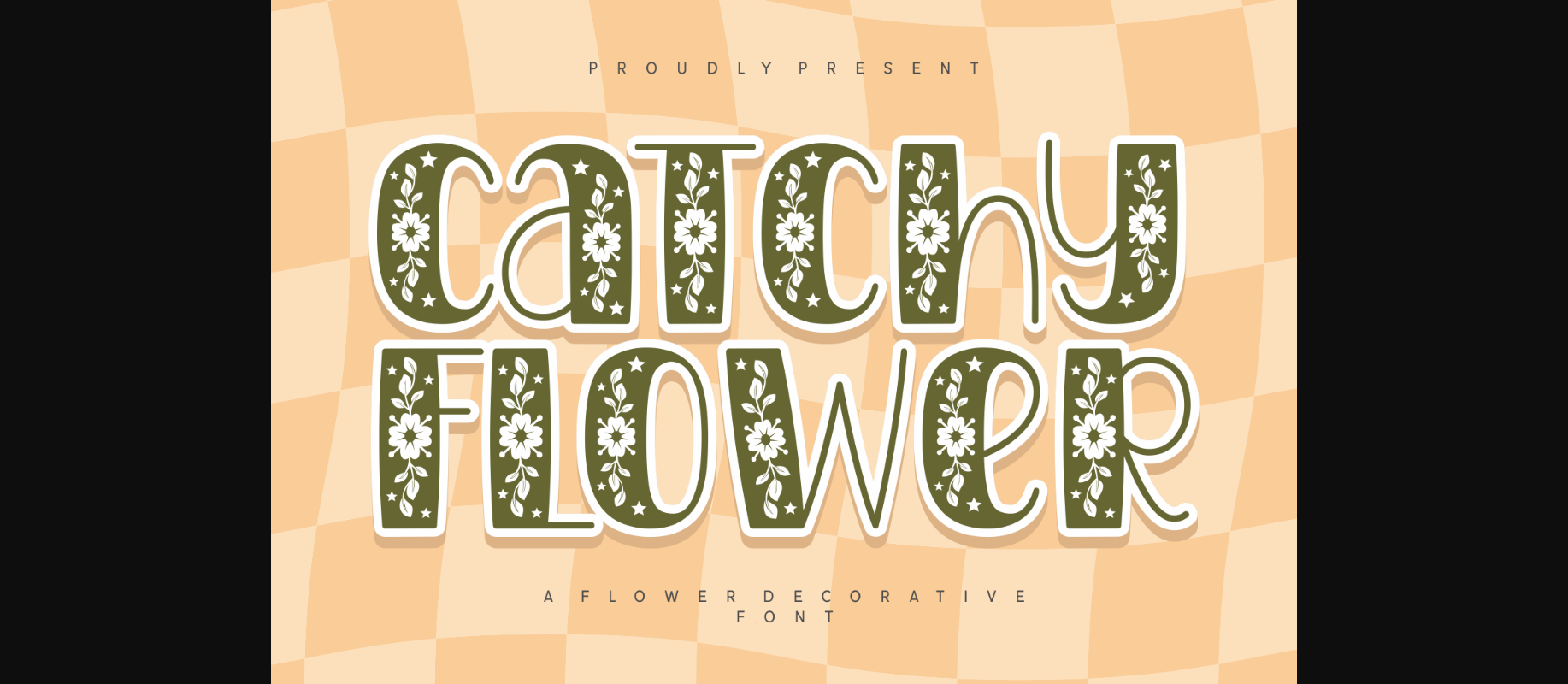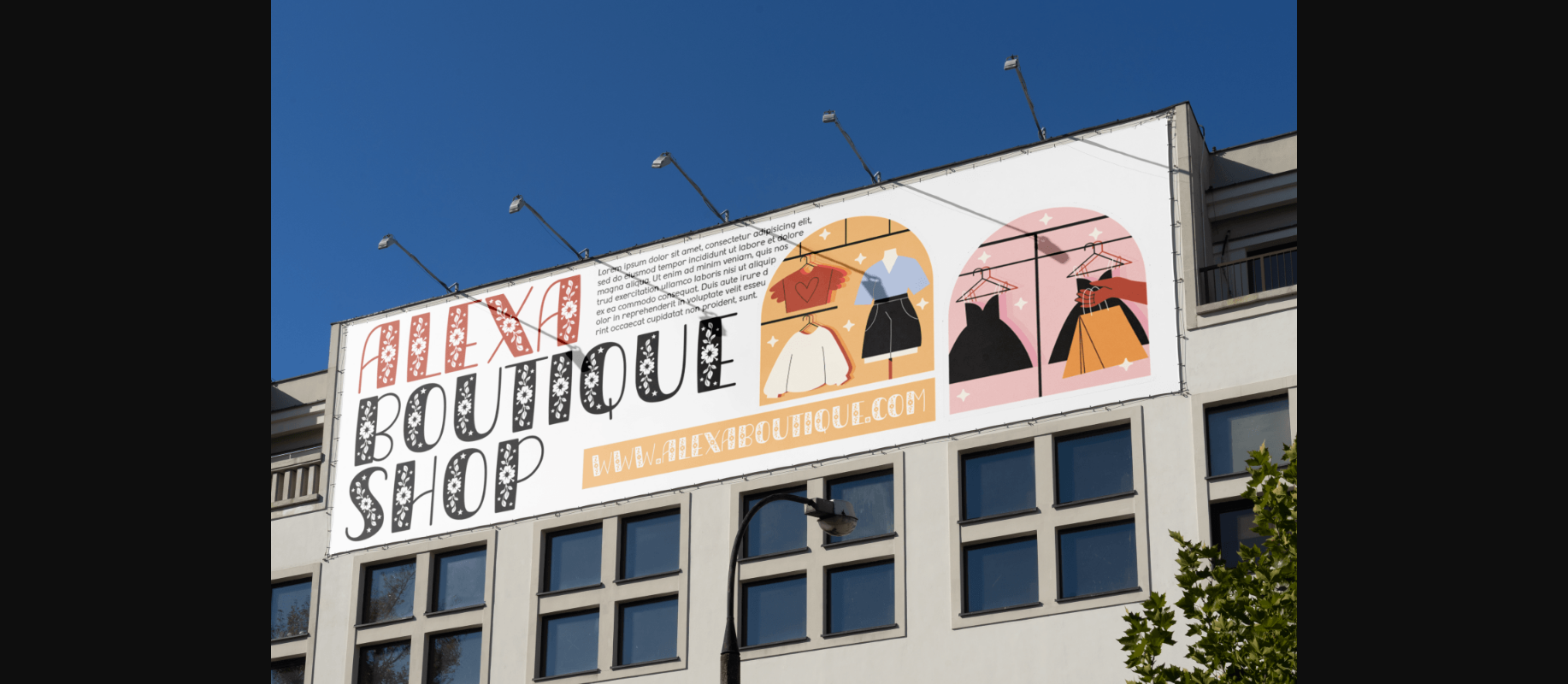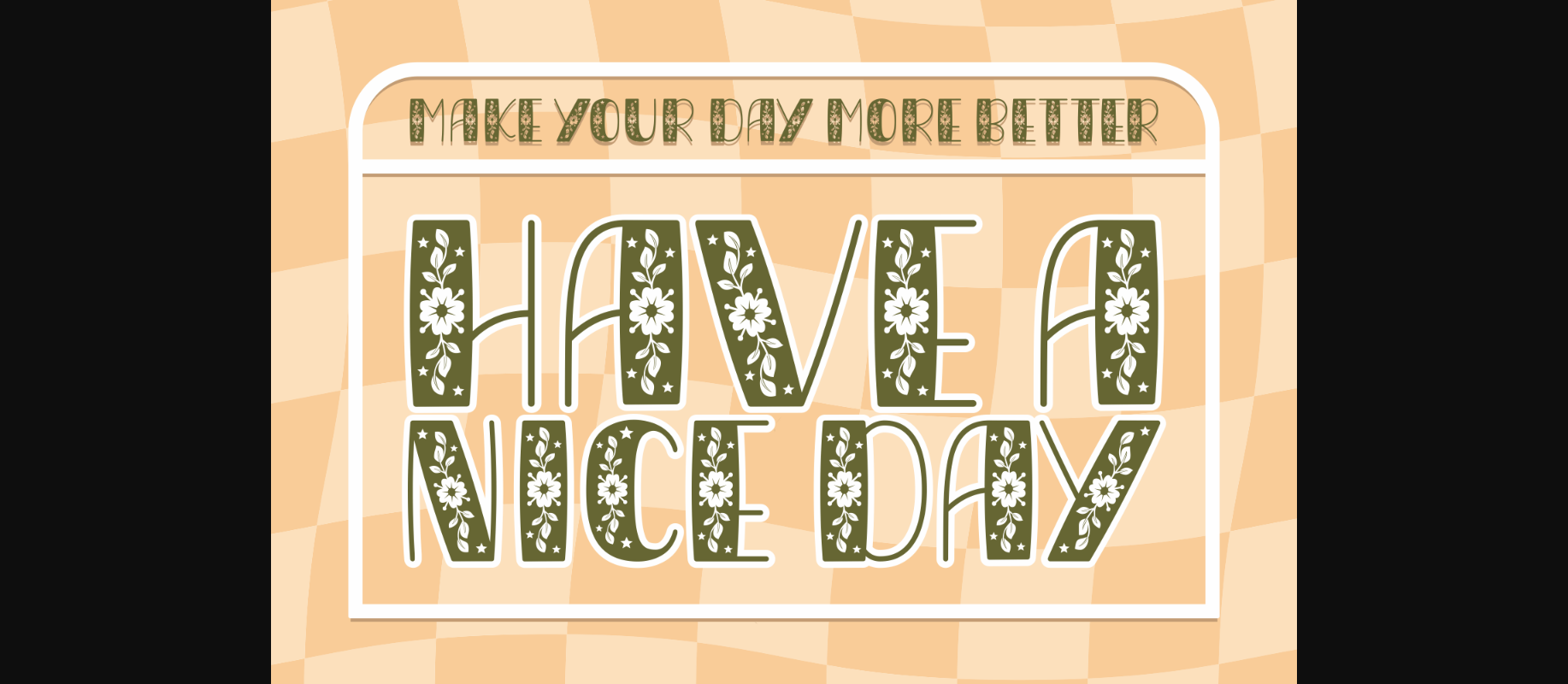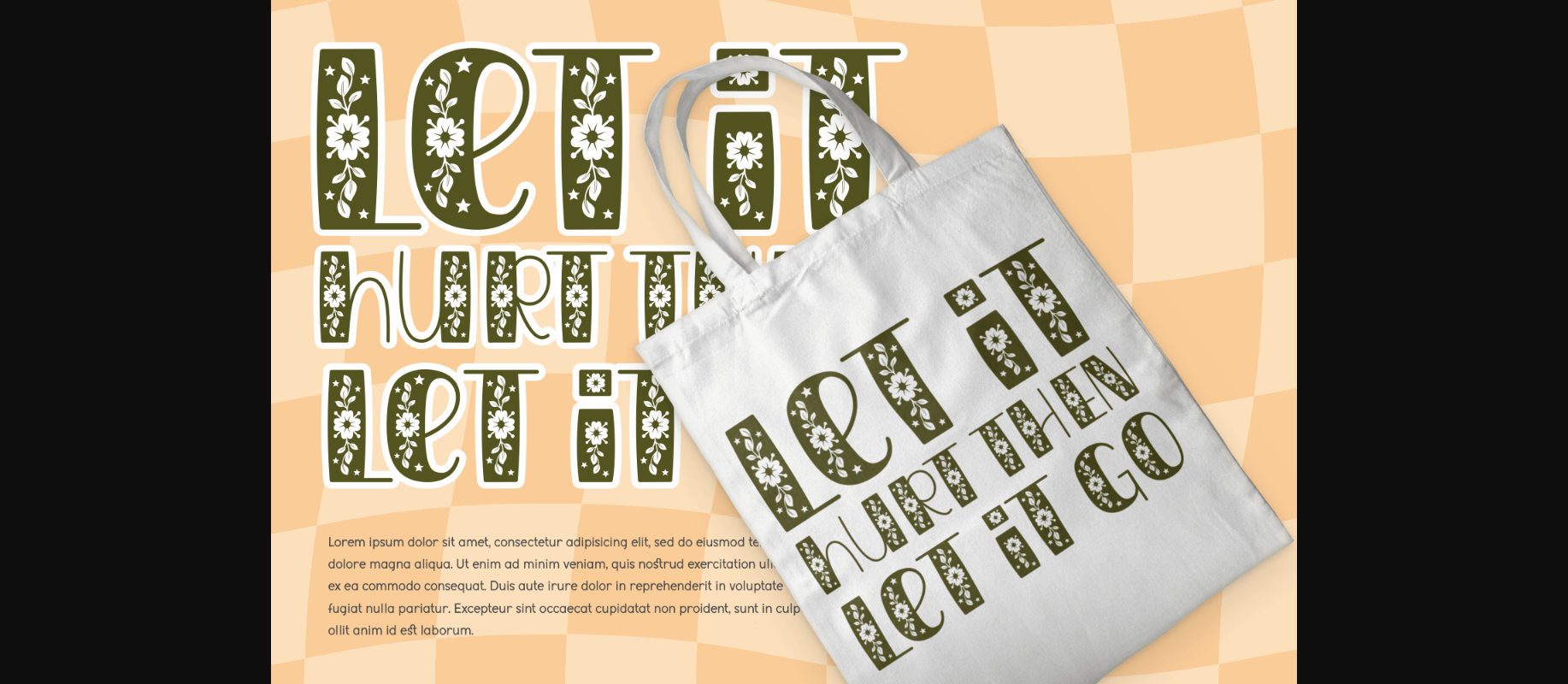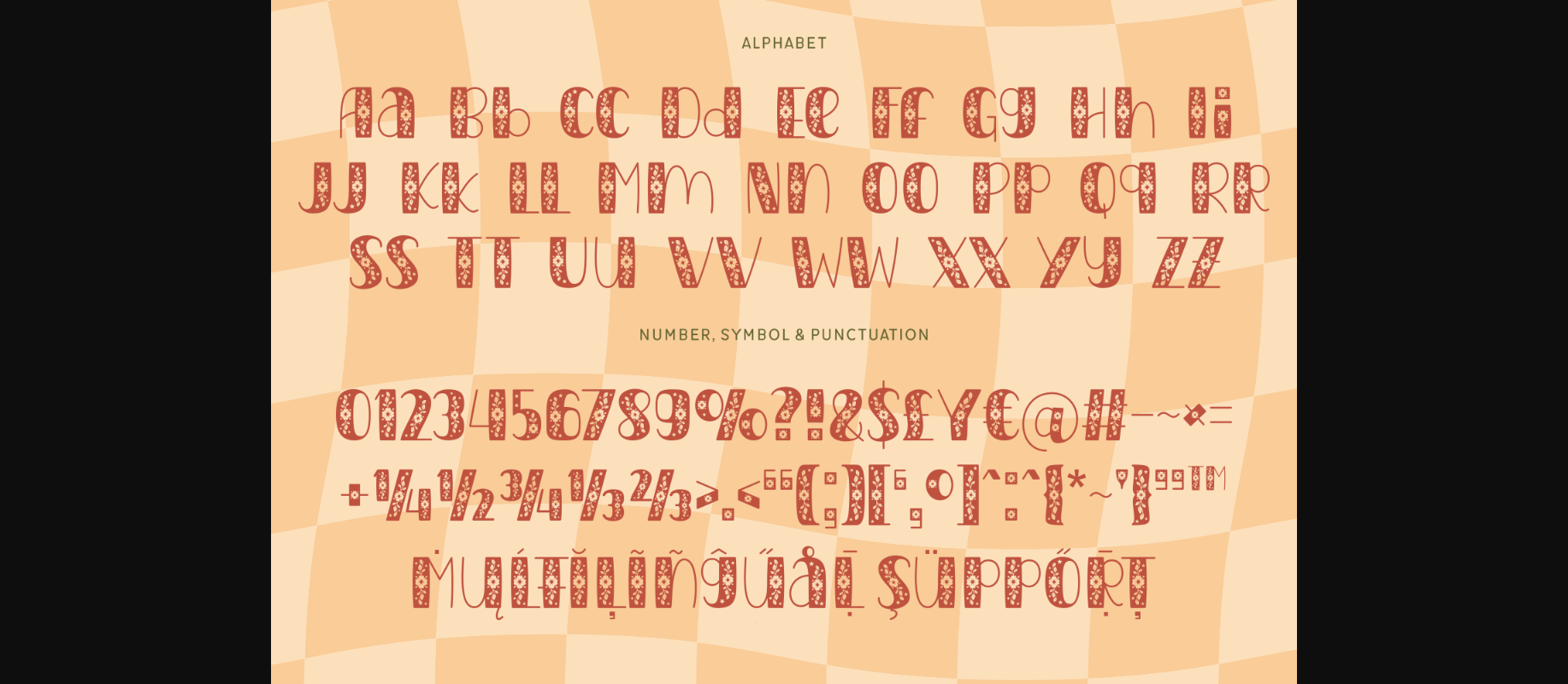
About Catchy Flower Font
Catchy Flower is a playful and cute flower-inspired decorative font. The lovely flower-patterned font makes it perfect for any design that requires a touch of playfulness to it! You can use it to embellish any wedding invitations, thank you cards, quotes, greeting cards, logos, and many more!